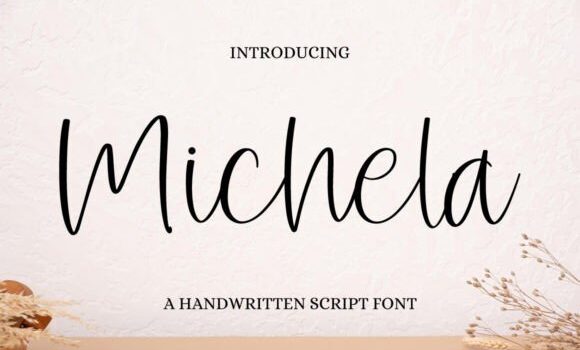
Michela Font – Free Download Introduction to Michela Font Michela is a beautiful, well-balanced, and graceful script font. 📸 Preview Gallery 6 images 📌 Product Name Michela Font 👤 Author Graphix Line Studio 📂 Category Explore ⬇️ Download Michela Font